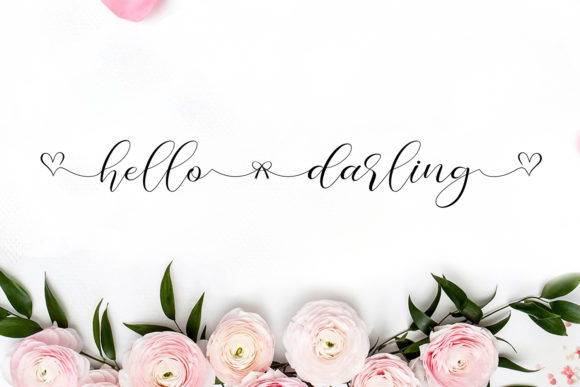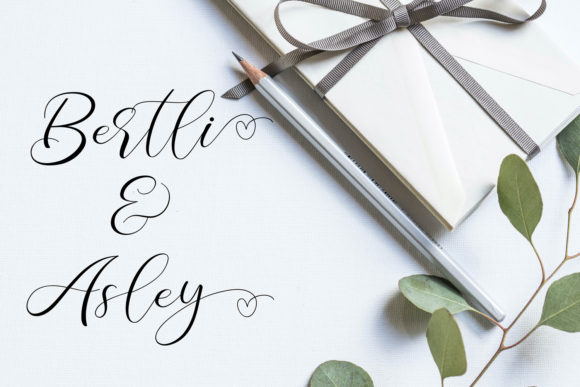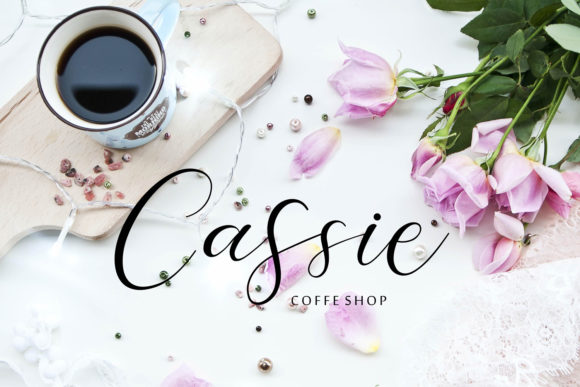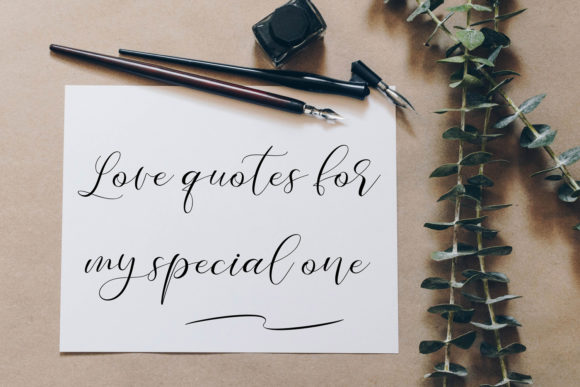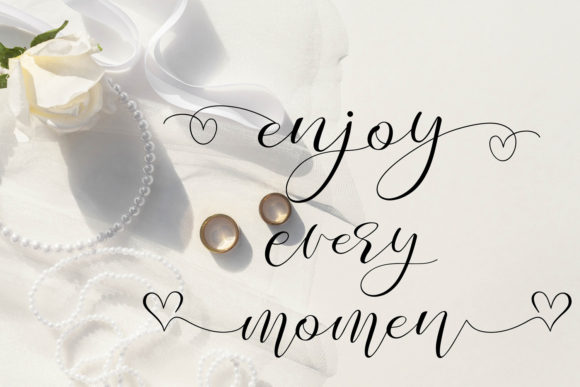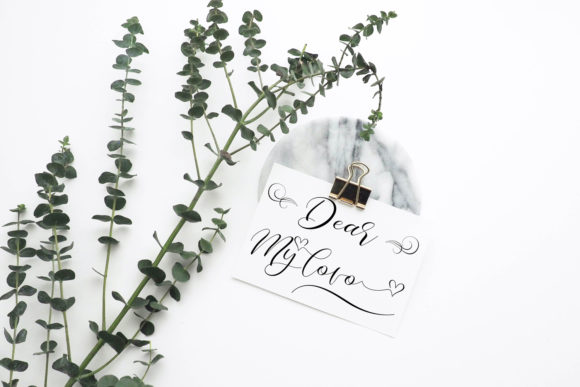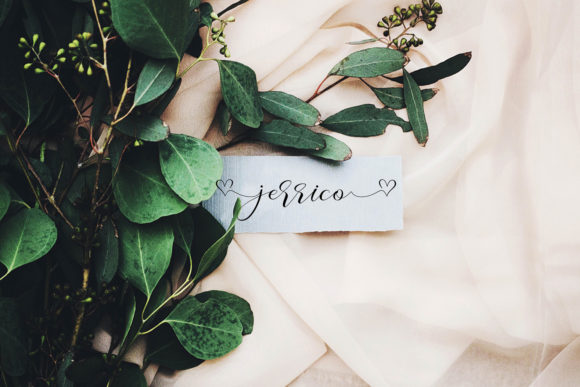
Peach Golden Font
About Peach Golden Font
Peach golden is a romantic and cute handwritten font. It features gorgeous swashes and ligatures that make this script incredibly versatile. Fall in love with its authentic feel and use it to create gorgeous wedding invitations, beautiful stationary art, eye-catching social media posts, and cute greeting cards. This font is PUA encoded which means you can access all of the cute glyphs and swashes with ease! It also features a wealth of special features including alternate glyphs and ligatures.